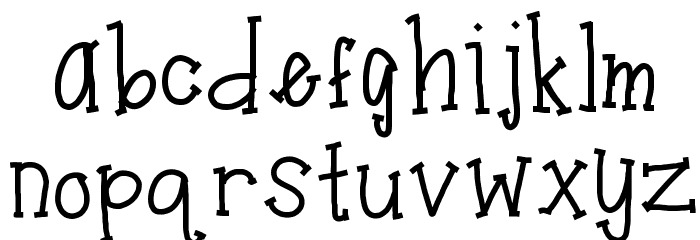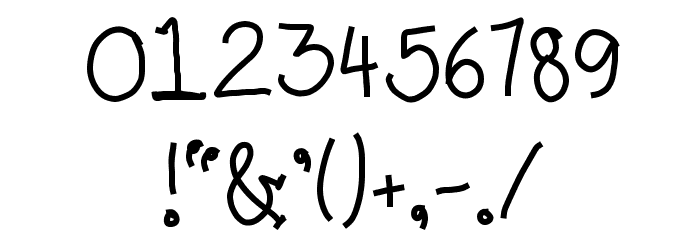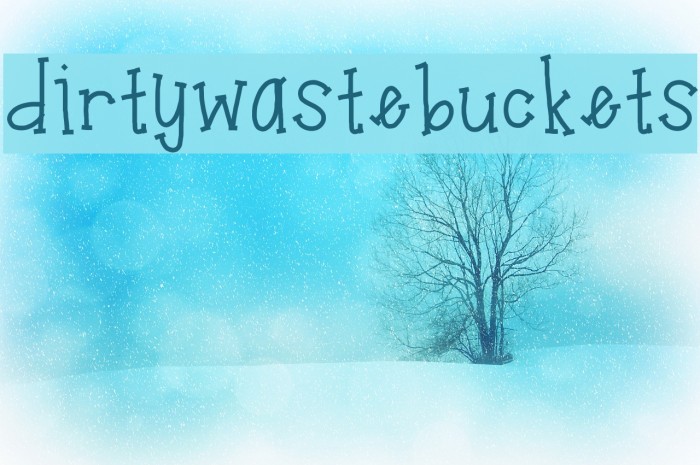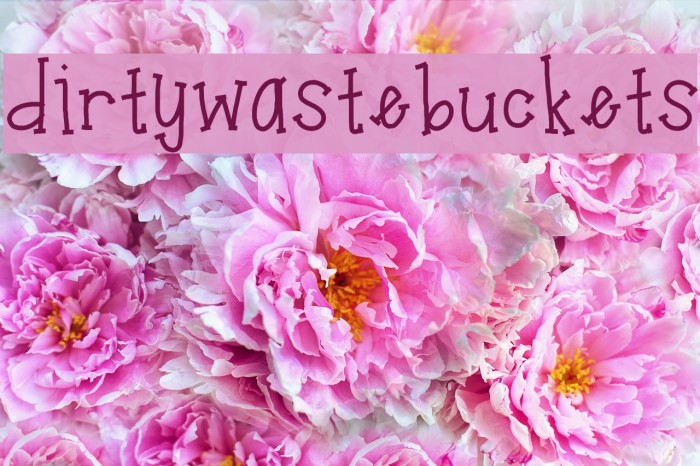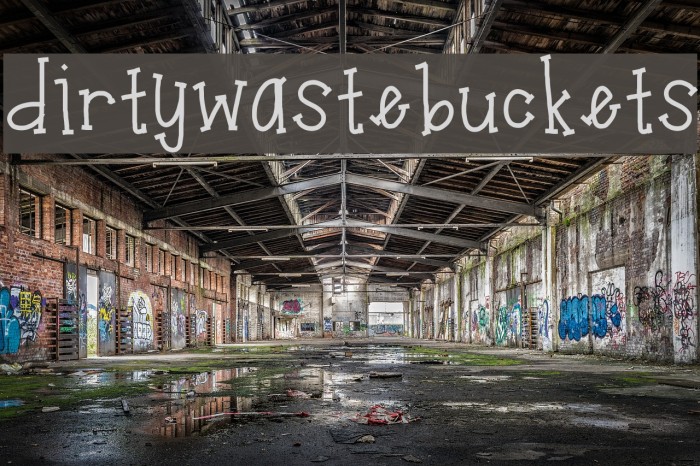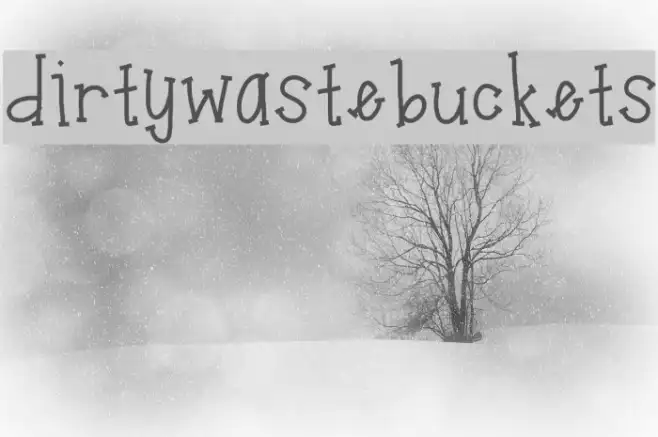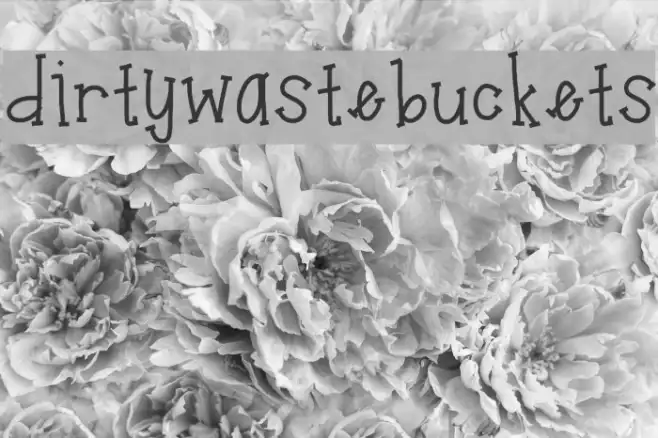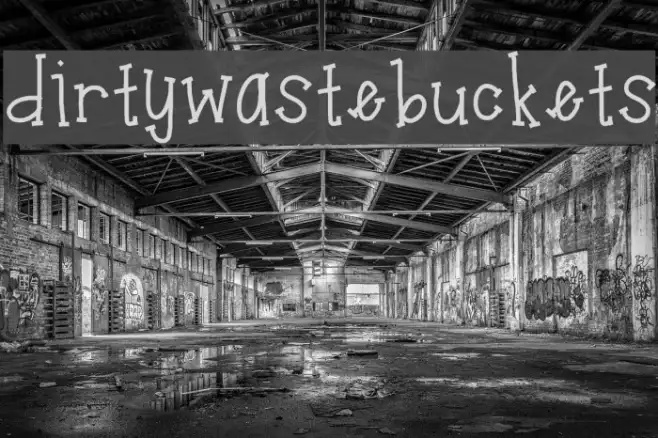
dirtywastebuckets Font
This font features a playful and quirky design, characterized by uneven strokes and a hand-drawn appearance. The letters have a whimsical quality, with varying heights and irregular curves that give it a casual and informal feel. The uppercase and lowercase letters maintain a consistent style, while the numbers and special characters complement the overall aesthetic. The font's unique charm makes it suitable for creative projects that require a touch of personality and fun.
A playful, hand-drawn font with uneven strokes and a whimsical style.
- Proposed Projects: Ideal for children's books, greeting cards, playful branding, and creative posters.
- Use Case: Headlines, Logos, Creative projects